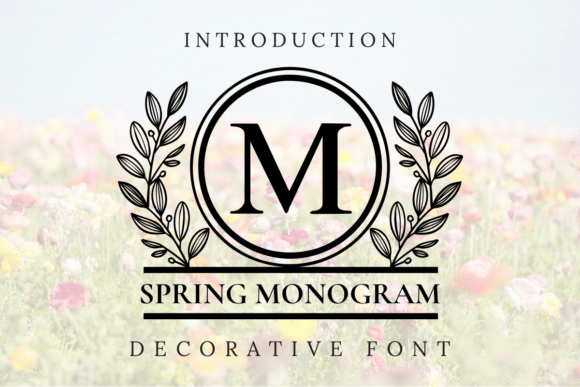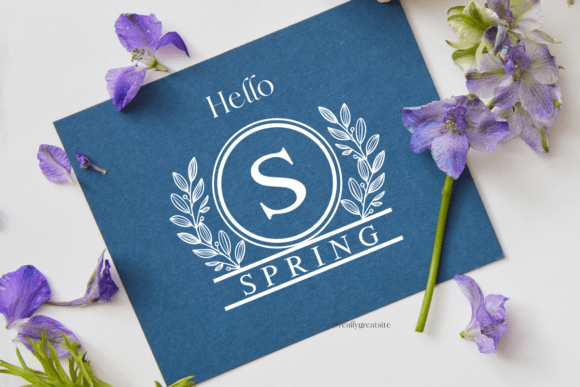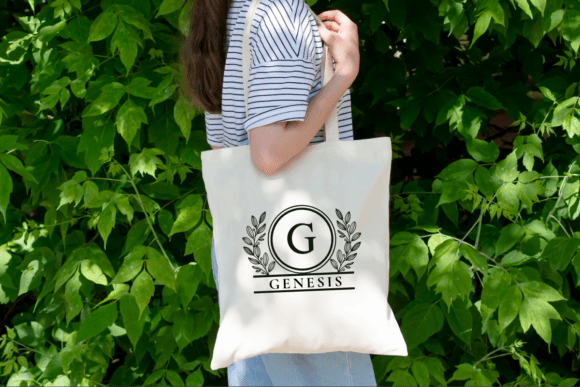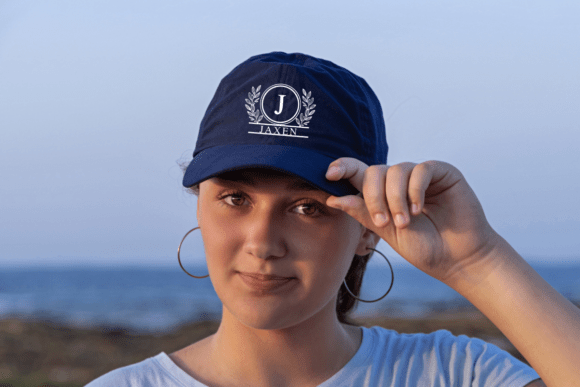
Spring Monogram Font
Spring Monogram is a gorgeous decorative font. You can use it for taking notes, writing a diary, or making greeting cards. However, you can still use it for other designs, such as banners, content, mugs, cards, shirts, stationery, social media posts, and more!